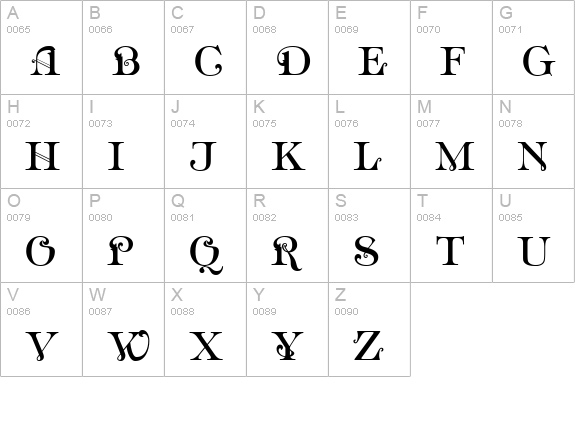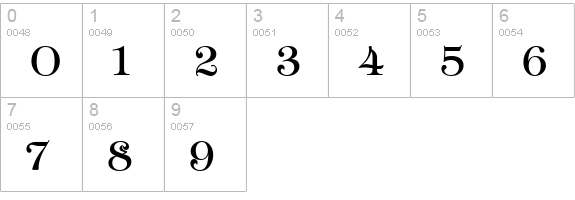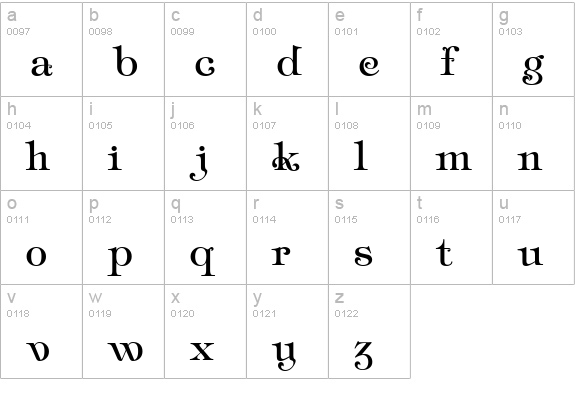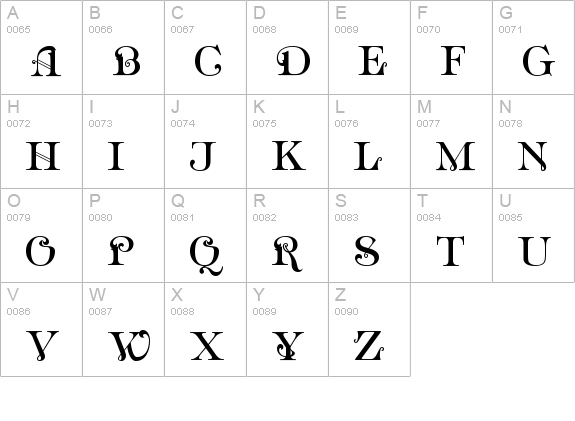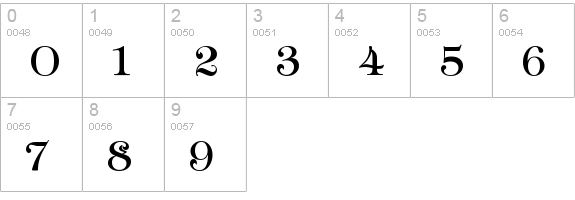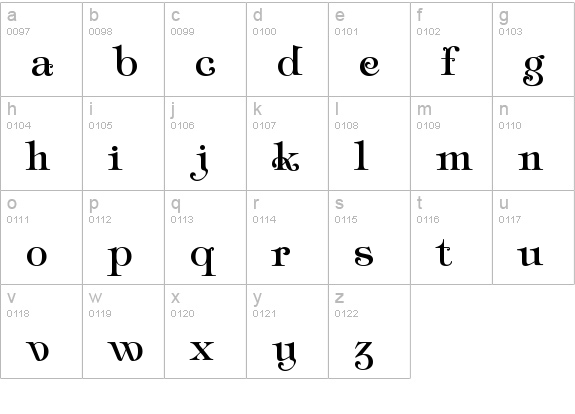
Ampir Deco Font Details
Introducing Ampir Deco font, a stunning display typeface that exudes elegance and sophistication. This unique font combines classic Art Deco elements with a modern twist, making it perfect for adding a touch of glamour to your designs. Ampir Deco features sleek lines, sharp angles, and intricate details that create a visually striking appearance. Whether used for branding, invitations, posters, or any other design project, this font is sure to make a statement. Best of all, Ampir Deco is available for free download at FontsMarket.com. So go ahead and elevate your designs with this eye-catching font today!